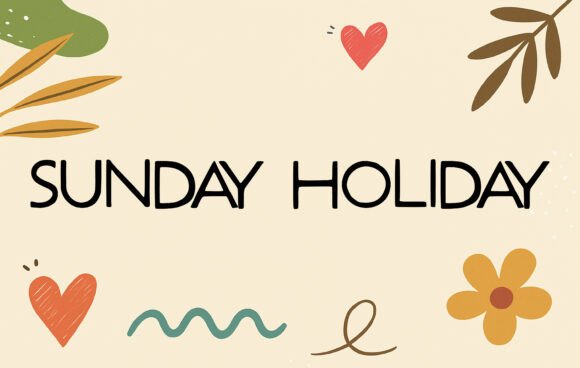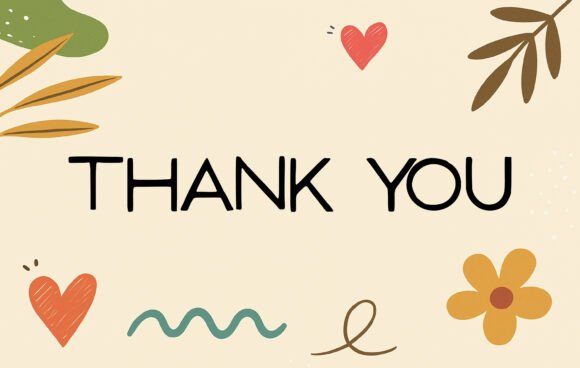
You’ve spent hours brainstorming the perfect idea, pouring over sketches and color palettes, and finally, you’re ready to bring your vision to life. But, one crucial element can make or break the entire design – the font. A well-chosen font can elevate your work, making it stand out from the crowd and leaving a lasting impression. That’s where the Bagus Font comes in – a true favorite among designers, designed to take your creative ideas to new heights.
This versatile font is not only legible but also visually appealing, making it perfect for a wide range of designs, from magazine headlines and social media posts to branding and wedding invitations. As a designer, you know the importance of choosing the right font to convey your message and evoke the desired emotions. The Bagus Font is a valuable addition to any design arsenal, offering a unique combination of style and functionality that’s sure to make your work shine.
Bagus Font Key Features
- Size and Resolution: The font is available in a single weight, with a character set designed to be clear and legible at resolutions up to 1200 dpi.
- Unique Characteristics: Bagus Font features a unique blend of modern and traditional design elements, making it suitable for a wide range of applications, from digital interfaces to print materials.
- Language Support: The font includes a comprehensive character set that supports Latin, Cyrillic, and Greek alphabets, as well as a range of punctuation and symbol characters.
- Font Metrics: Bagus Font has been carefully crafted to ensure precise font metrics, ensuring accurate spacing and alignment in any design application.
Bagus Font Review
As a designer, I’ve had the chance to work with a wide range of fonts, and I’ve got to say that Bagus Font is a solid addition to any design project. Here’s what I like about it:
- ✨ Unique aesthetic: Bagus Font has a distinctive look that’s both modern and timeless. The bold lines and rounded corners give it a friendly, approachable feel.
- ✨ High legibility: Whether it’s in large or small sizes, Bagus Font is easy to read, making it perfect for body text, headings, and even signage.
- ✨ Versatile: This font works well for both digital and print projects, from logos and branding to websites and advertisements.
Of course, like any font, Bagus Font has its limitations:
- ⚠️ Limited language support: While Bagus Font is available in several languages, it’s not a comprehensive font family, which may limit its use in multilingual projects.
- ⚠️ Limited font sizes: While it’s highly legible, Bagus Font may not be the best choice for extremely small font sizes, where the bold lines and rounded corners may become difficult to read.
Overall, I think Bagus Font is a great choice for designers who want a modern, approachable font that’s easy to read and versatile. While it may have some limitations, its unique aesthetic and high legibility make it a solid addition to any design project.
Bagus Font is ideal for creating eye-catching headings and titles in Canva designs.
Bagus Font is great for creating custom typography in Adobe designs.
Bagus Font is ideal for creating professional-looking presentations and documents in PowerPoint and Word.
Some tips for getting the most out of Bagus Font include:
- Using it in bold or italic styles to add emphasis.
- Pairing it with other fonts to create a unique and eye-catching look.
- Using it in headings and titles to create a clear hierarchy of information.
Common use cases for Bagus Font include:
- Creating branding and marketing materials.
- Designing websites and digital products.
Project Ideas with Bagus Font
Create a simple yet elegant quote poster using the Bagus Font. This font is perfect for highlighting inspirational quotes and adding a touch of sophistication to your design.
Project 2: Handmade Journal Cover
Create a unique journal cover using the Bagus Font and add a personal touch to your writing or art journal.